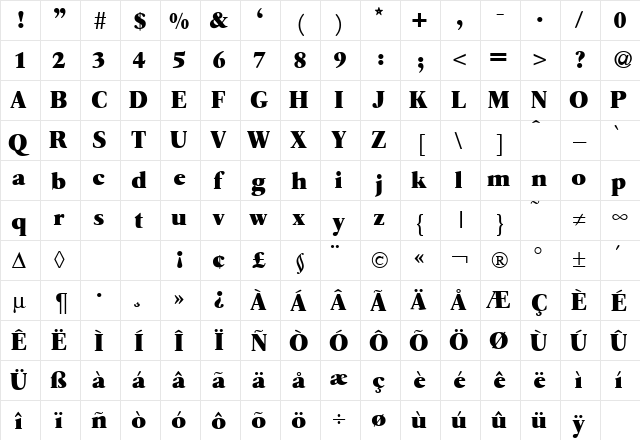
QuartoExtrabold Regular
Design Context for QuartoExtrabold Typeface
QuartoExtrabold takes a measured approach to typography — its balanced proportions and neutral character make it a reliable workhorse for both digital and print work. Its bold stroke weight gives it real presence on the page.